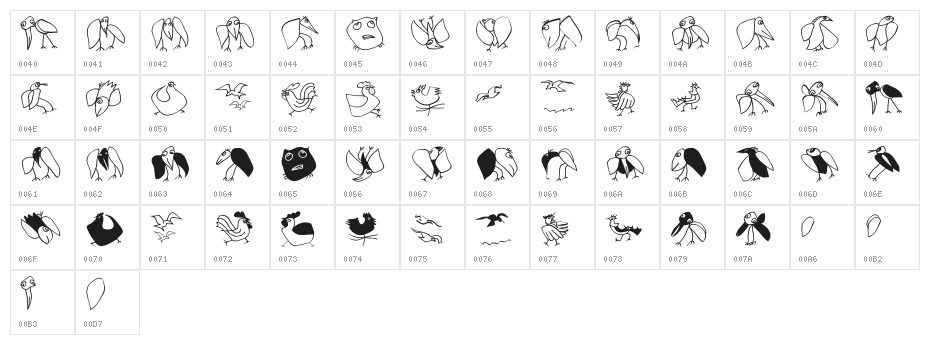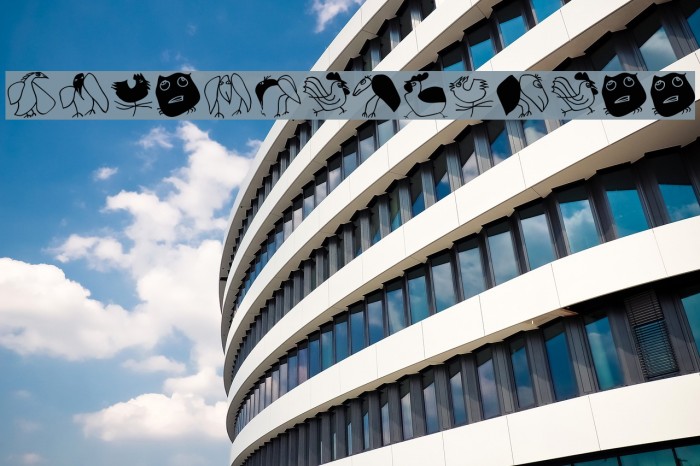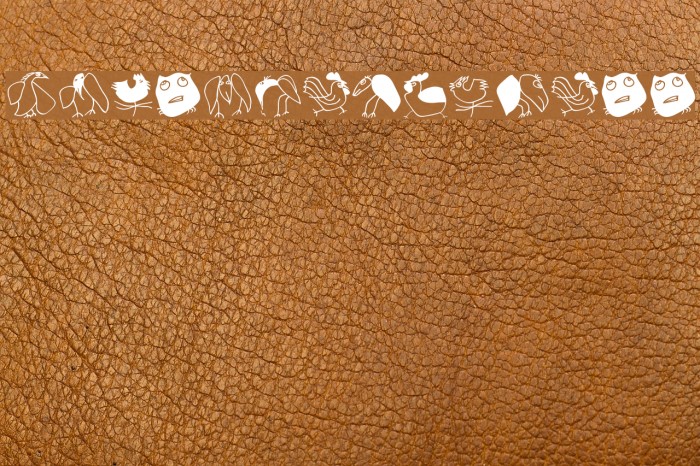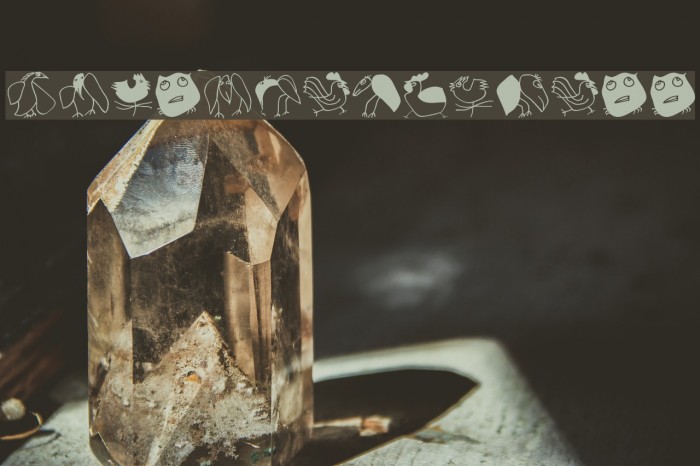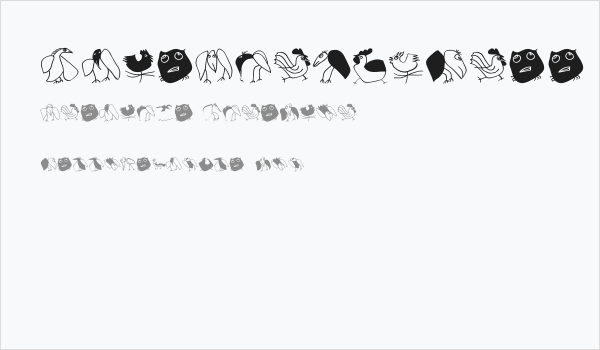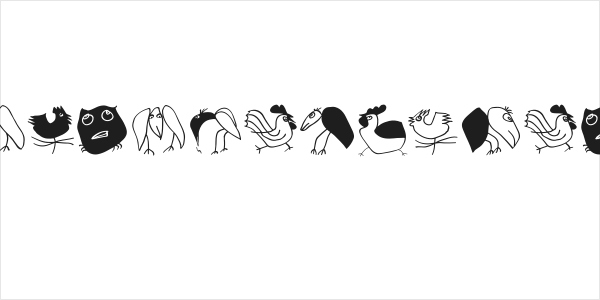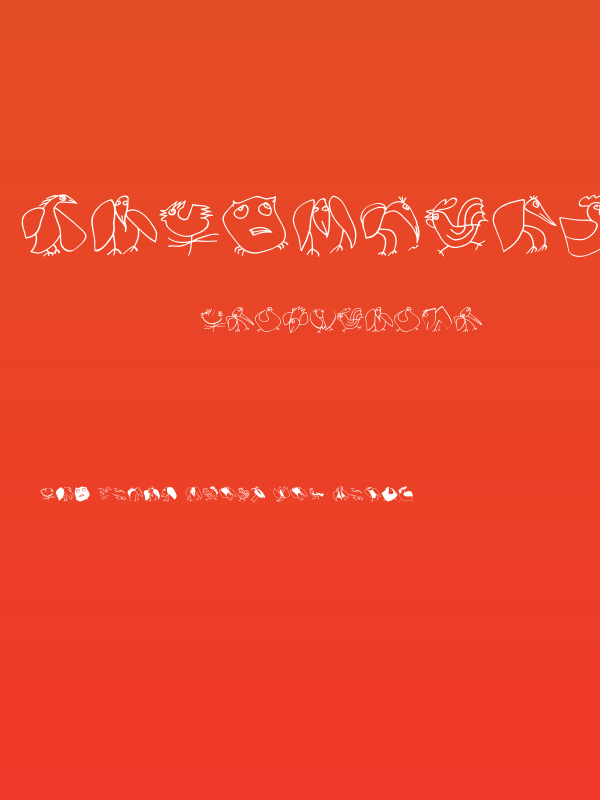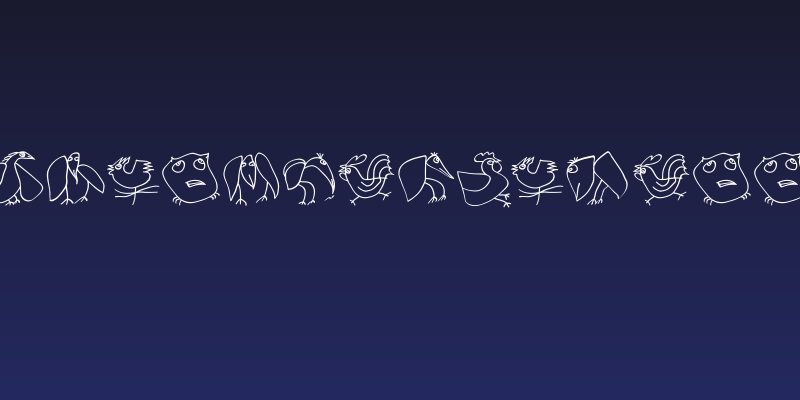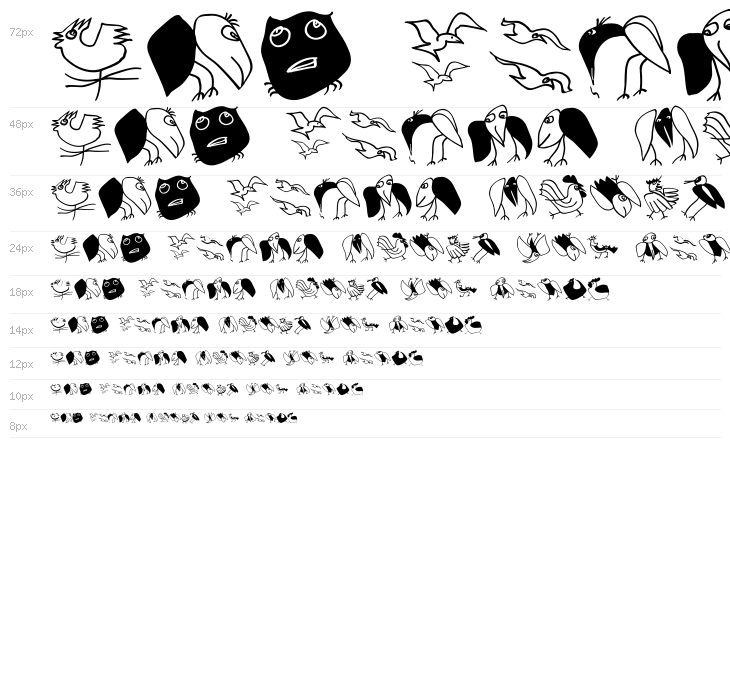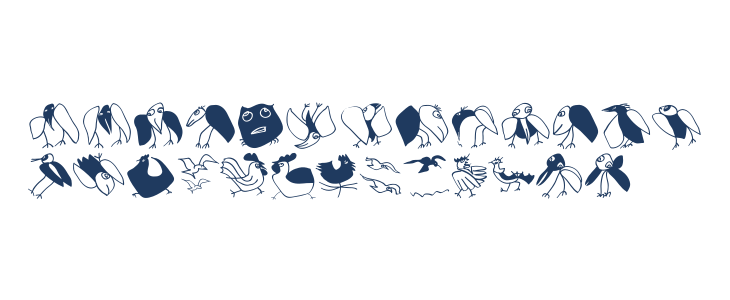
LateBirdsThree Font
This is a whimsical and playful decorative font featuring a series of unique bird illustrations. Each character is represented by a different bird, showcasing a variety of poses and expressions. The style is hand-drawn, with a mix of light and bold strokes that give each bird a distinct personality. The font is highly decorative, making it suitable for creative and artistic projects. The characters are not uniform in size or shape, adding to the quirky and fun aesthetic. This font is perfect for projects that require a touch of humor and creativity.
| Use Case | Logos, Posters, Creative projects |
| Proposed Projects | Ideal for children's books, greeting cards, posters, and creative branding projects. |